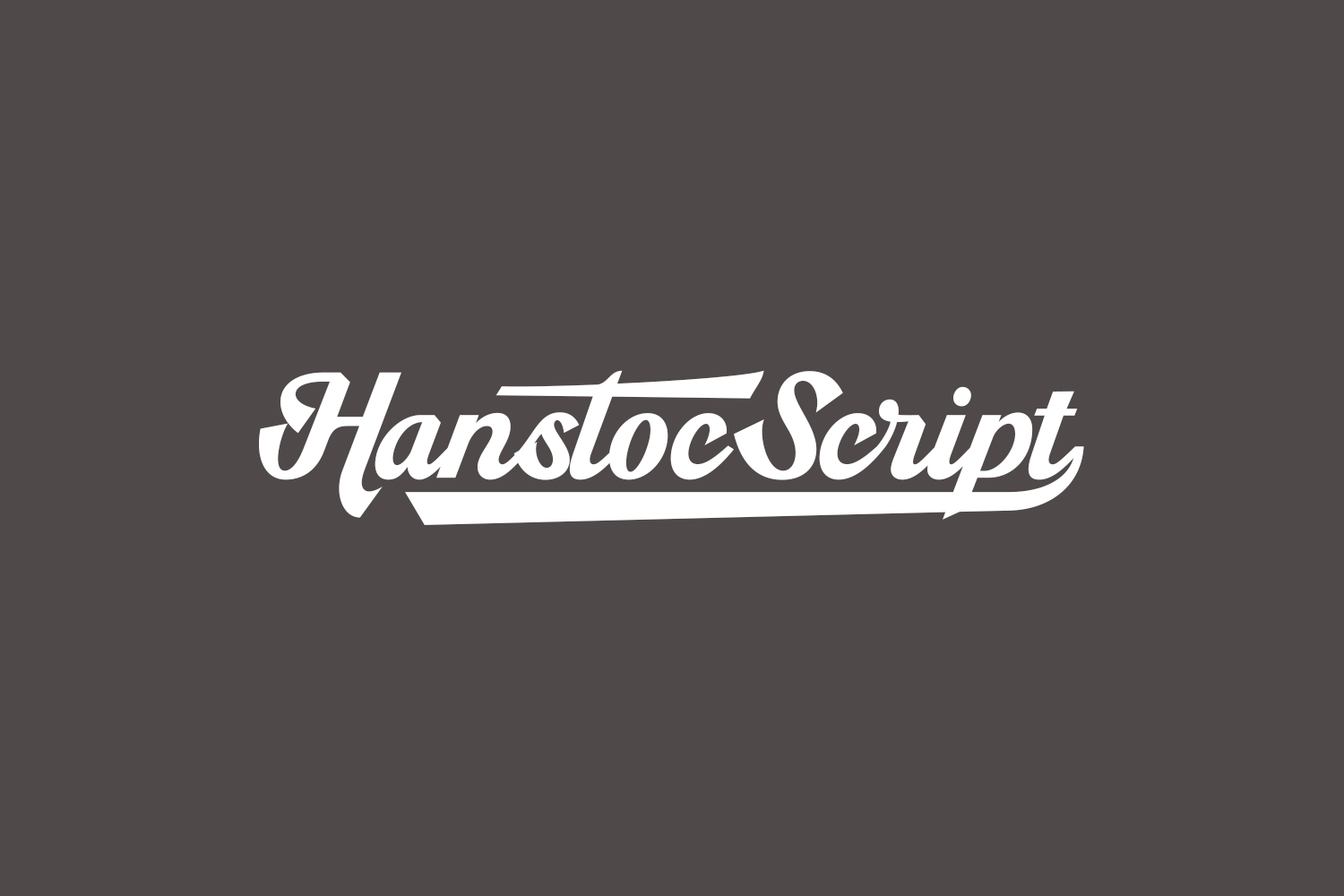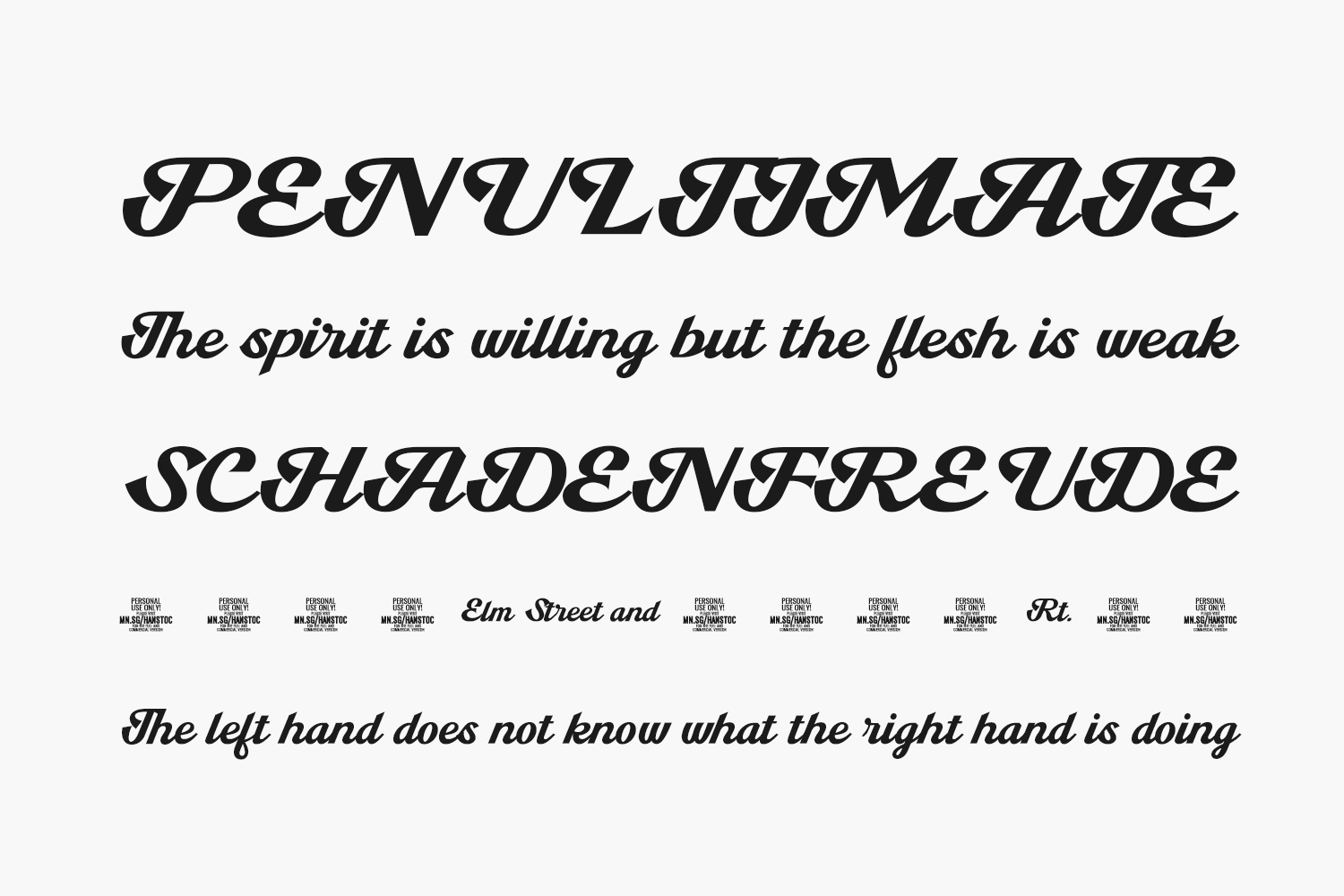
Hanstoc Script Free Font is a timeless typeface that embodies the elegance and sophistication of vintage calligraphy. This font is a nod to the classic scripts of the past, while also adding a contemporary twist that makes it perfect for modern designs. With its smooth curves, graceful strokes, and flowing lines, Old School Hanstoc Script Free Font exudes a sense of charm and refinement that is sure to elevate any project it’s used in. Whether you’re designing a wedding invitation, a book cover, or a branding project, this font will bring a touch of old-world class and style to your work. So if you’re looking for a typeface that will stand the test of time, Old School Hanstoc Script Free Font is the perfect choice.